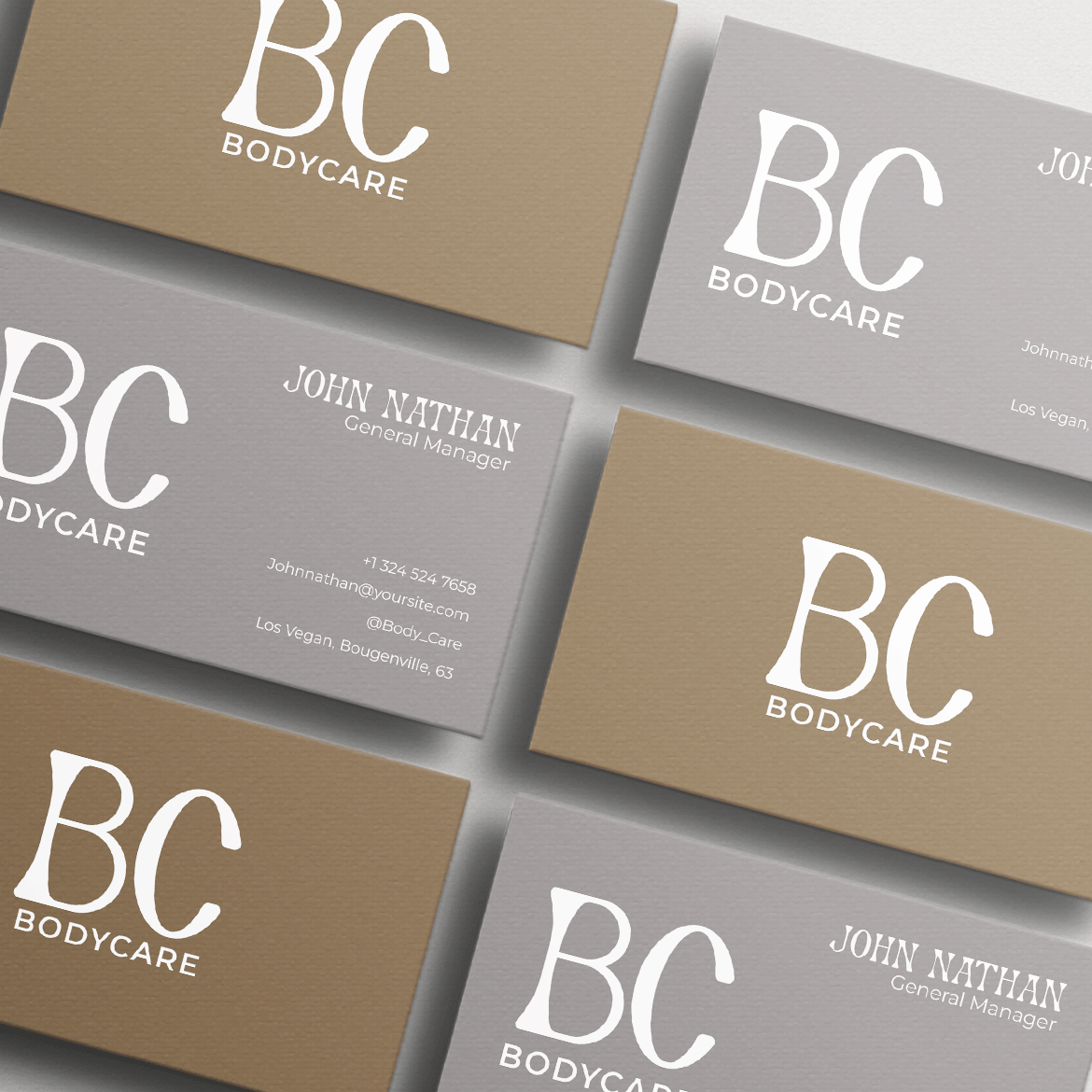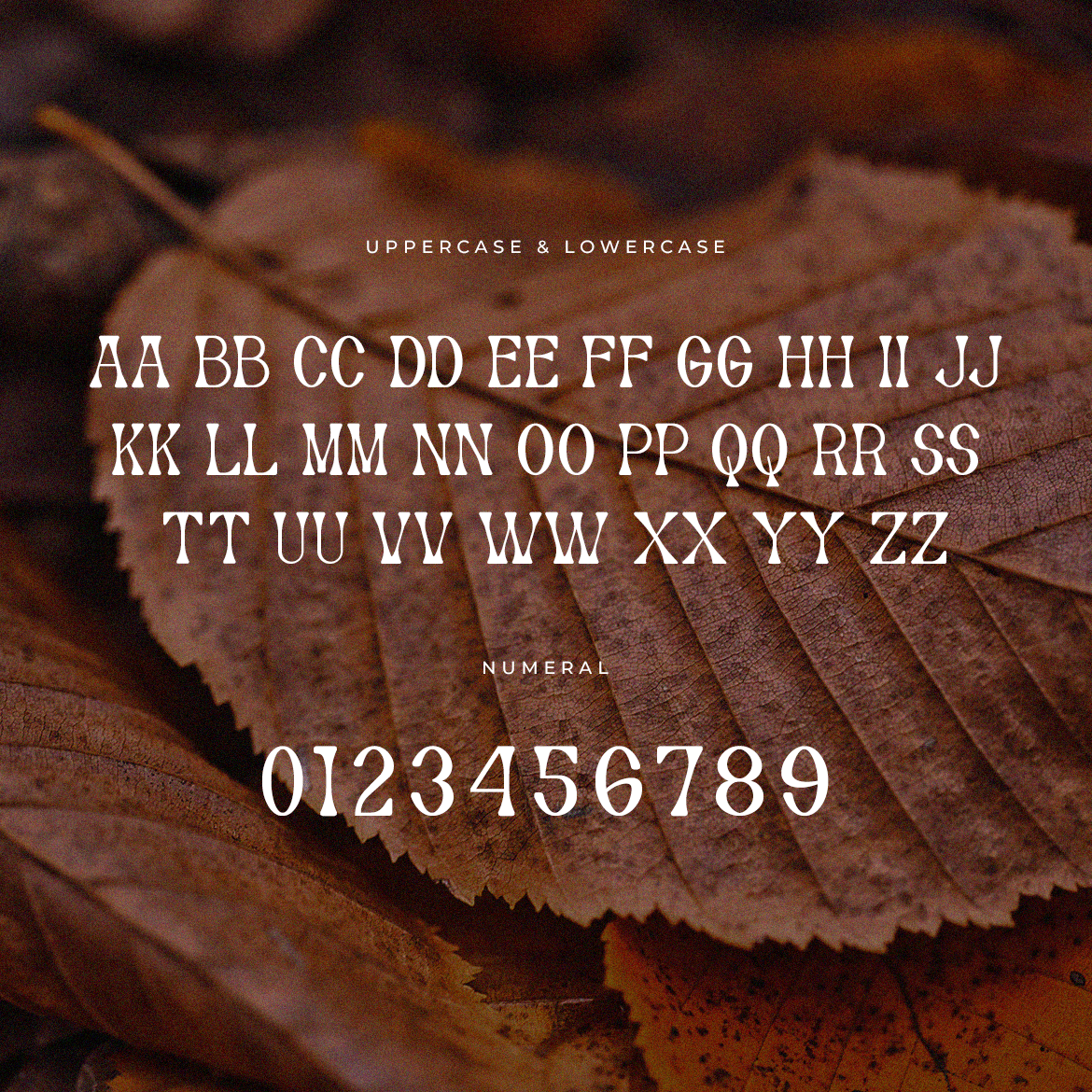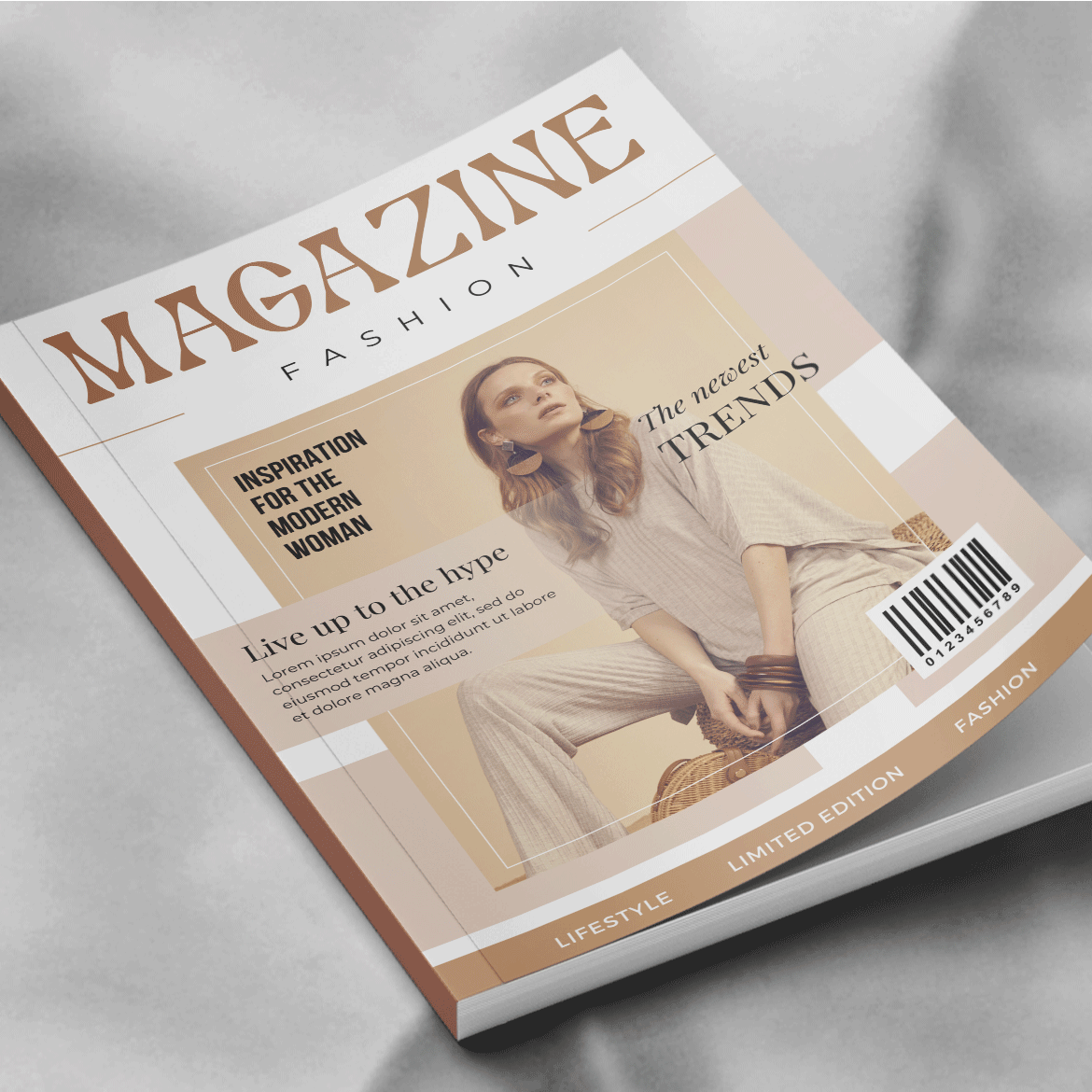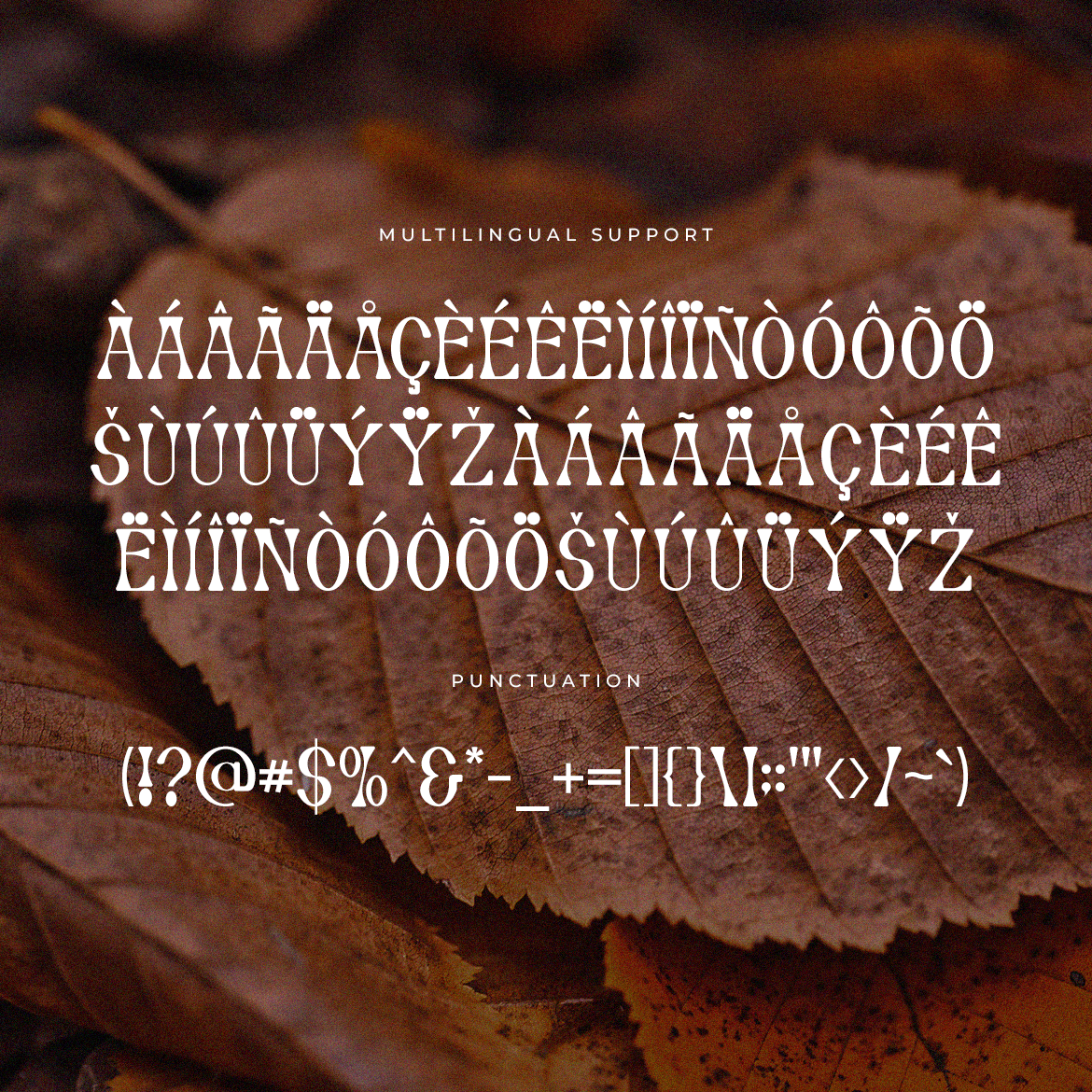
Autumn – Modern Serif Font
Introducing “Autumn,” a modern serif font that brings seasonal elegance and timeless sophistication to your design projects. Perfect for designers, typographers, and creatives seeking a refined and versatile typeface, Autumn offers a sleek and stylish design that is both contemporary and classic.
Ideal for branding, editorial layouts, logos, packaging, and web design, Autumn’s clean lines and balanced proportions provide a professional and sophisticated aesthetic. Each character is meticulously crafted to ensure readability and visual appeal, making your designs both elegant and impactful.
The “Autumn” font includes a complete set of uppercase and lowercase letters, numbers, punctuation marks, and special characters. This comprehensive set ensures seamless integration into a variety of design projects, from chic branding to elegant editorial content.
Elevate your designs with Autumn, the modern serif font that combines seasonal elegance with timeless sophistication.